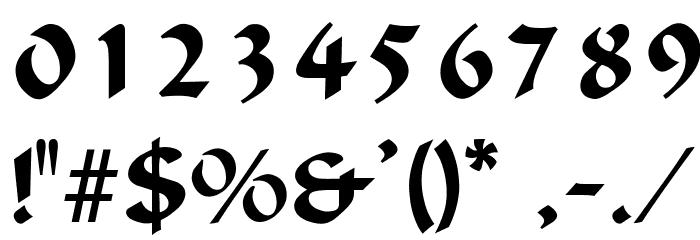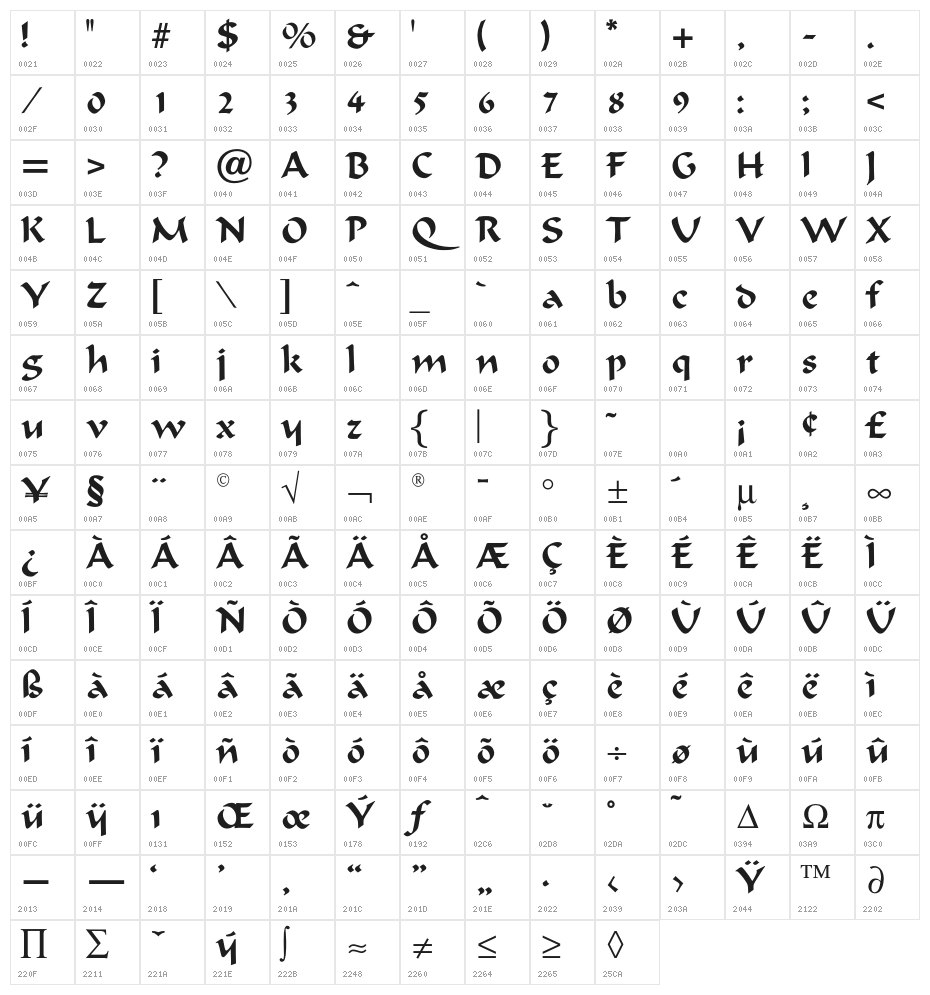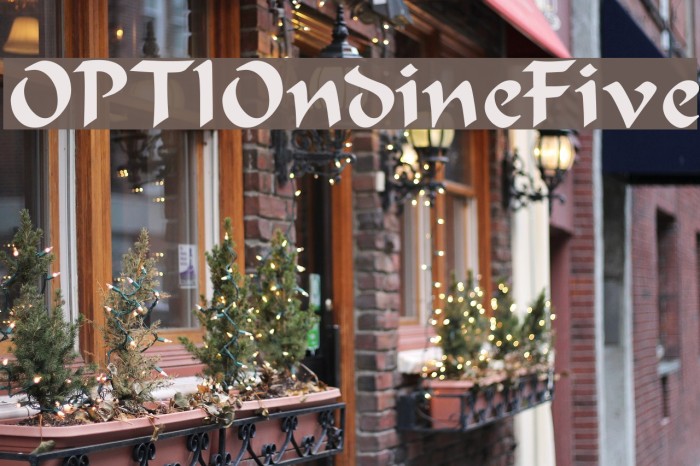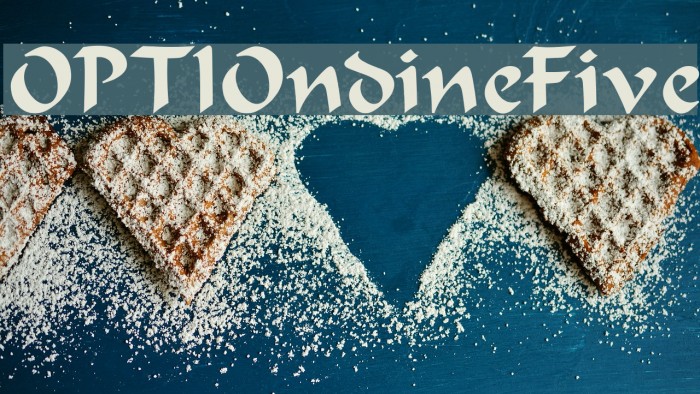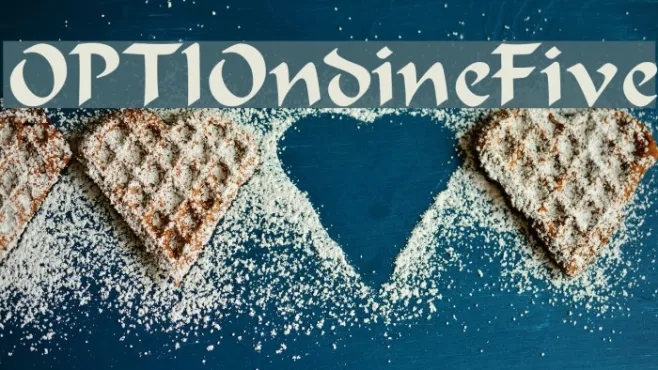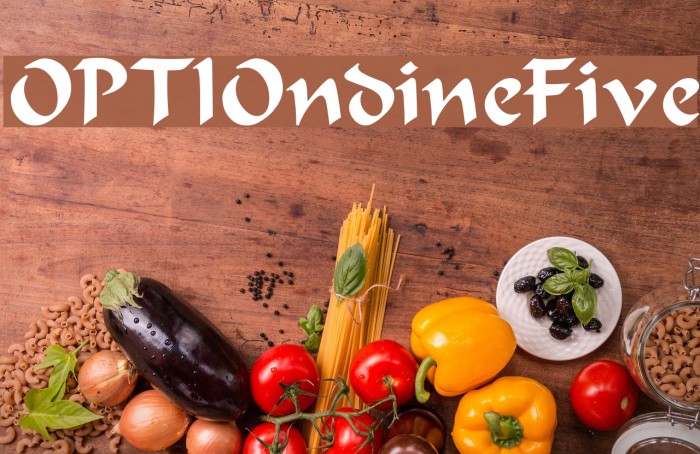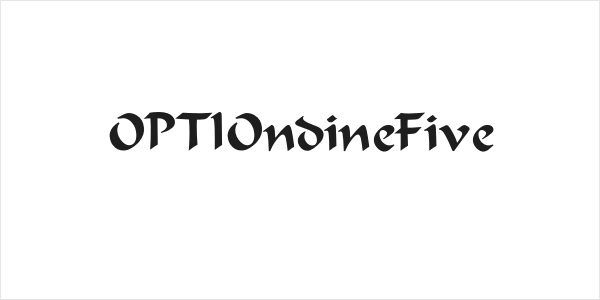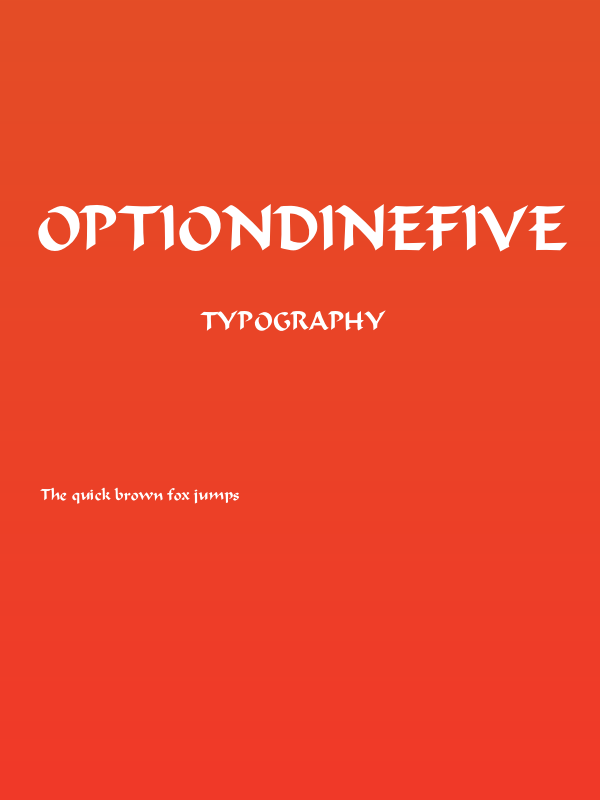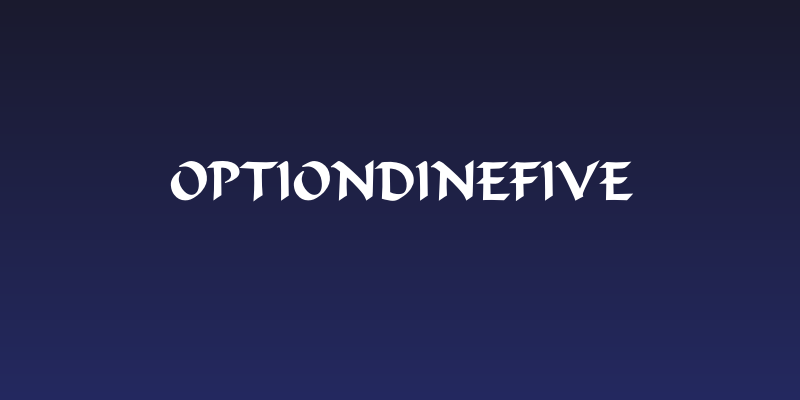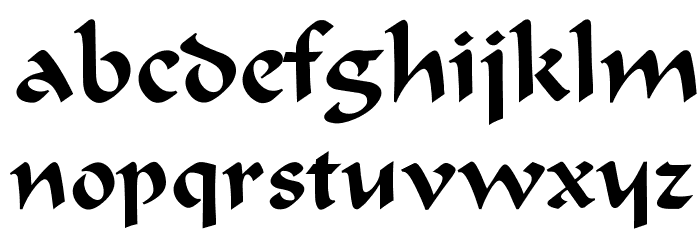
OPTIOndineFive Font
OPTIOndineFive Description
This font features a bold and dramatic style with sharp, angular edges and a distinct medieval flair. The uppercase letters are particularly striking, with a gothic influence that is evident in the pointed serifs and the unique curvature of certain characters like 'Q' and 'R'. The lowercase letters maintain this theme, offering a consistent visual experience with slightly more rounded forms. Numbers and special characters are equally bold, ensuring readability while maintaining the overall aesthetic. This font is ideal for projects that require a historical or fantasy element, providing a sense of grandeur and tradition.
Proposed ProjectsIdeal for fantasy book covers, historical event posters, or themed branding materials.